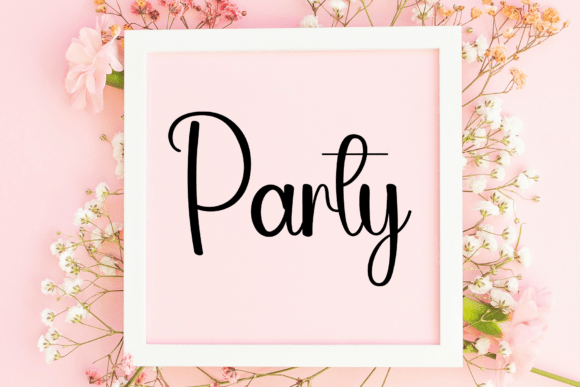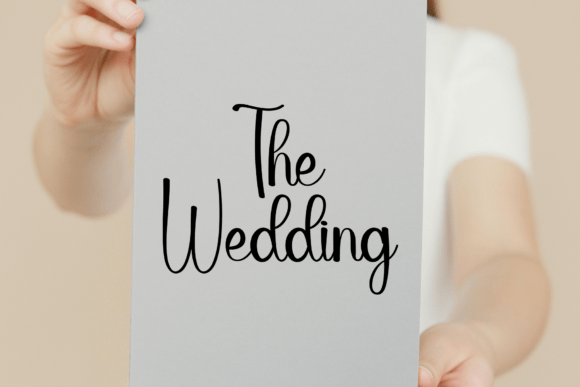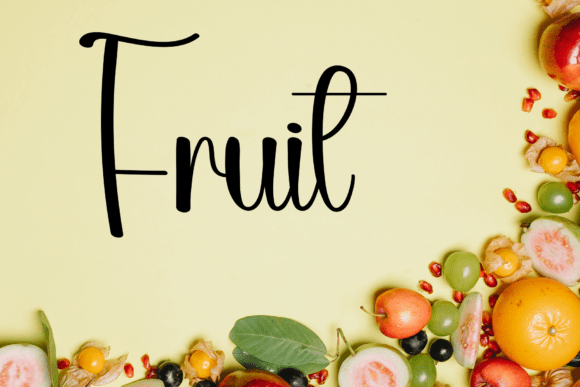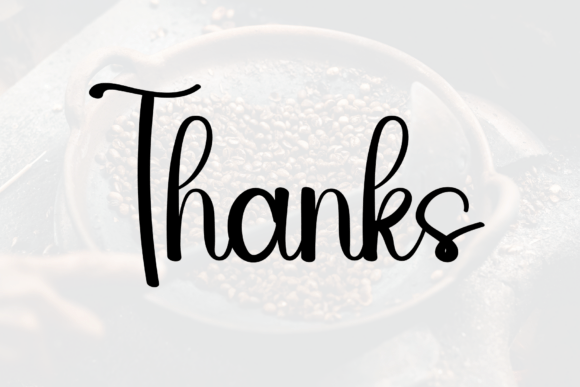
Coffee January Font: Elevate Your Designs with Modern-Chic Elegance
In the world of typography, few fonts manage to strike a balance between sophistication and playfulness. The Coffee January Font is one such typeface that seamlessly blends the elegance of calligraphy with the casual ease of a felt-tip marker. This modern typeface is a perfect addition to any designer’s arsenal, offering a unique and stylish appearance that’s sure to elevate any project.
What Sets Coffee January Apart
The Coffee January Font stands out from the crowd with its tall ascenders and unique, artistic flourishes on capital letters. These distinctive features give the font a rhythmic and stylish appearance that’s reminiscent of a morning at a cozy coffee shop. The font’s balanced weight makes it an excellent choice for a variety of applications, from prominent titles to shorter blocks of text.
Ideal Applications for Coffee January Font
The Coffee January Font is particularly effective in certain design contexts. Here are some of the ideal applications for this versatile typeface:
- Fashion Editorials: The font’s sophisticated and artistic vibe makes it a perfect fit for fashion editorials, where style and elegance are paramount.
- Beauty Product Packaging: The Coffee January Font’s unique blend of modern-chic and elegance makes it an excellent choice for beauty product packaging, where standing out on crowded shelves is crucial.
- Sophisticated Social Media Templates: The font’s stylish appearance and balanced weight make it an excellent choice for social media templates, where grabbing attention and conveying a message is key.
Pairing and Usage
The Coffee January Font is incredibly versatile and can be paired with a variety of other typefaces to achieve different looks. Here are some suggestions for pairing and using this elegant typeface:
- Pair with a Classic Serif: For a “high-fashion” look, pair the Coffee January Font with a classic serif typeface. This combination creates a sophisticated and elegant appearance that’s perfect for fashion editorials and luxury branding.
- Use over Textured Paper Backgrounds: To enhance the font’s tactile, hand-crafted quality, use it over textured paper backgrounds. This adds a layer of depth and visual interest to your designs.
Why Choose Coffee January Font?
The Coffee January Font is the perfect tool for designers looking to inject a bit of “modern-chic” personality into their portfolio. Here are some reasons why you should consider adding this elegant typeface to your collection:
- Unique and Stylish: The font’s distinctive features and artistic flourishes make it a standout in any design.
- Versatile: The Coffee January Font can be used for a variety of applications, from fashion editorials to social media templates.
- Elegant and Sophisticated: The font’s blend of modern-chic and elegance makes it perfect for designs that require a touch of sophistication.
In conclusion, the Coffee January Font is a modern typeface that offers a unique blend of elegance and playfulness. Its distinctive features, balanced weight, and versatility make it an excellent choice for designers looking to elevate their designs with a touch of modern-chic personality. Whether you’re working on fashion editorials, beauty product packaging, or sophisticated social media templates, this font is sure to impress.